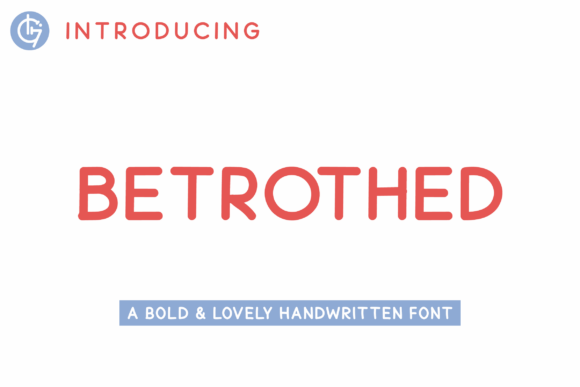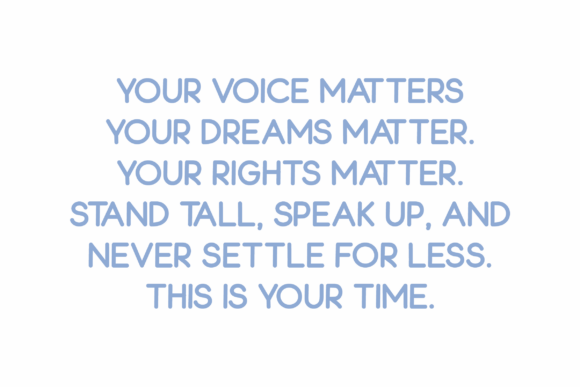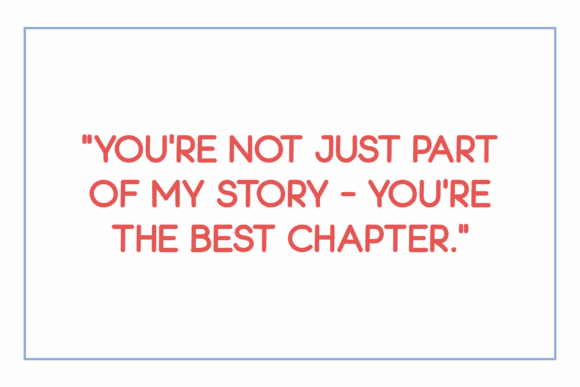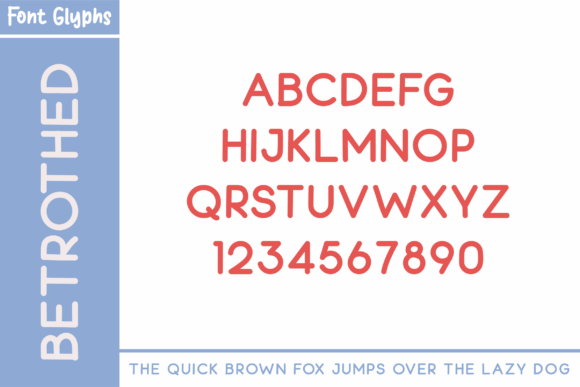
Betrothed Font: Bold Handwritten Font for Inspiring Social Media Design
About the Betrothed Font
Crafted with precision, the Betrothed Font is ready to bring your ideas to life. Make an impact with Betrothed, a handwritten font that combines a strong, bold presence with a charming, personal touch. Ideal for branding, packaging, social media, and print, its unique style adds warmth and authenticity to any design. Achieve a professional yet approachable aesthetic with it.
Betrothed Font Usage Examples
Betrothed Font Example